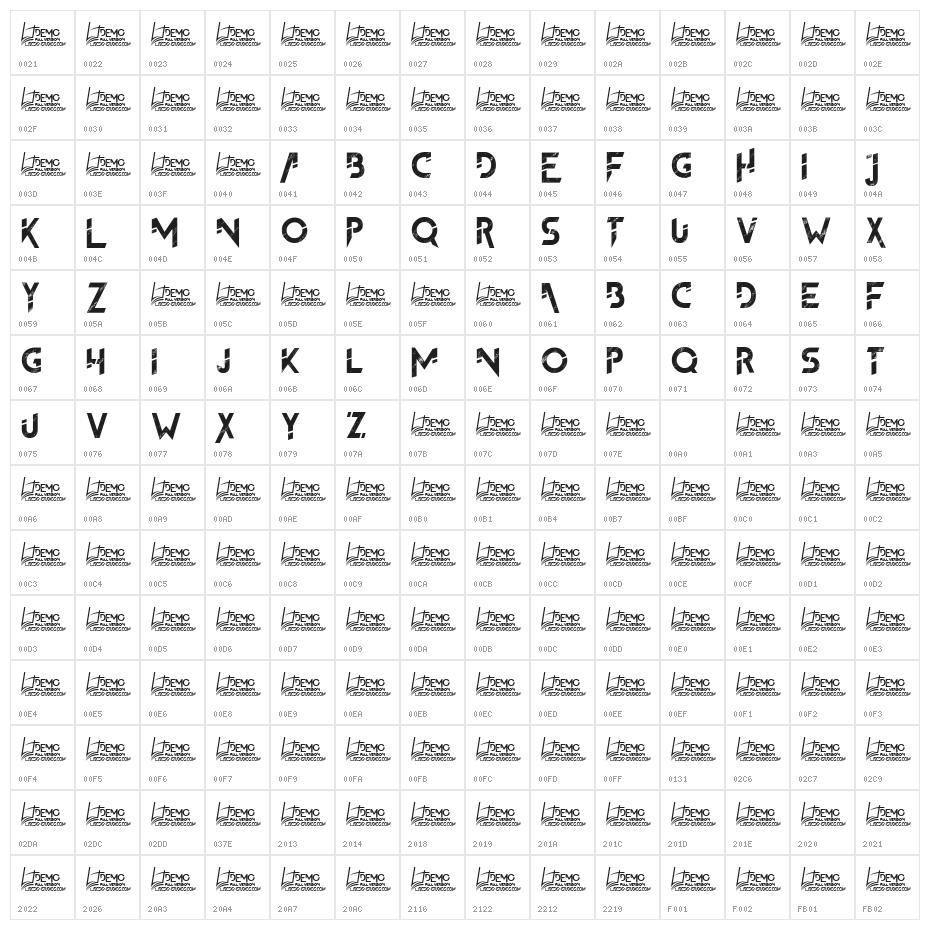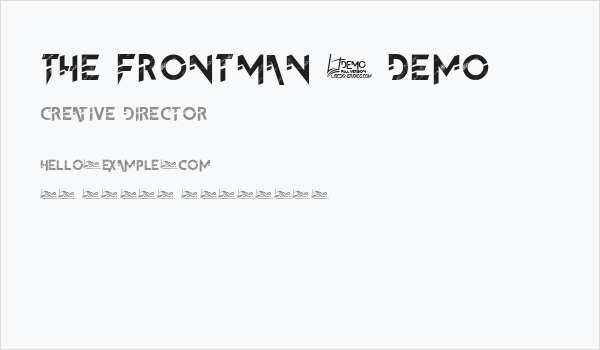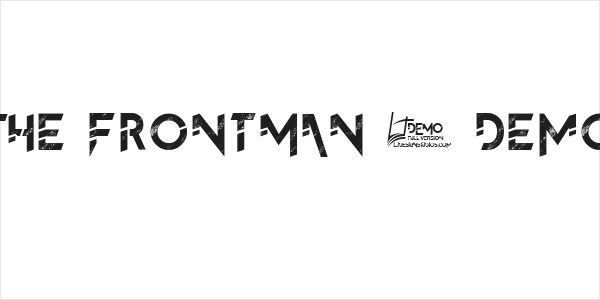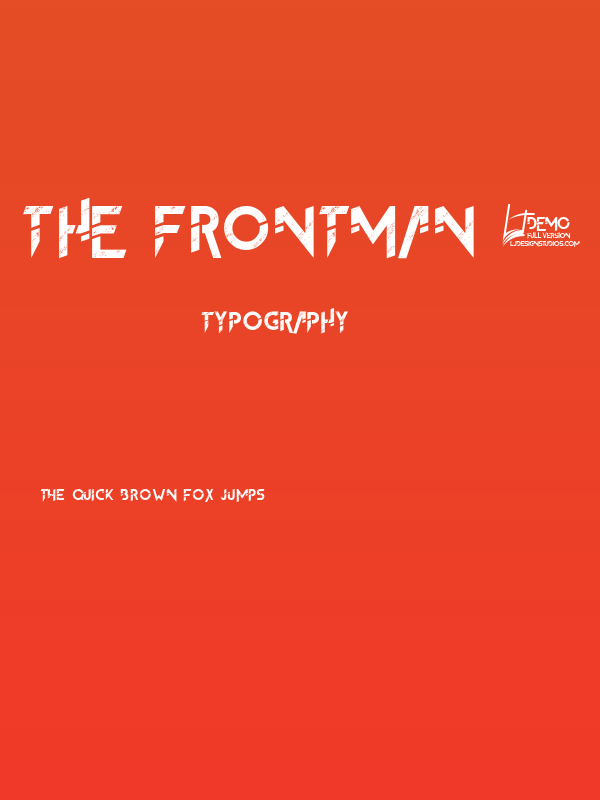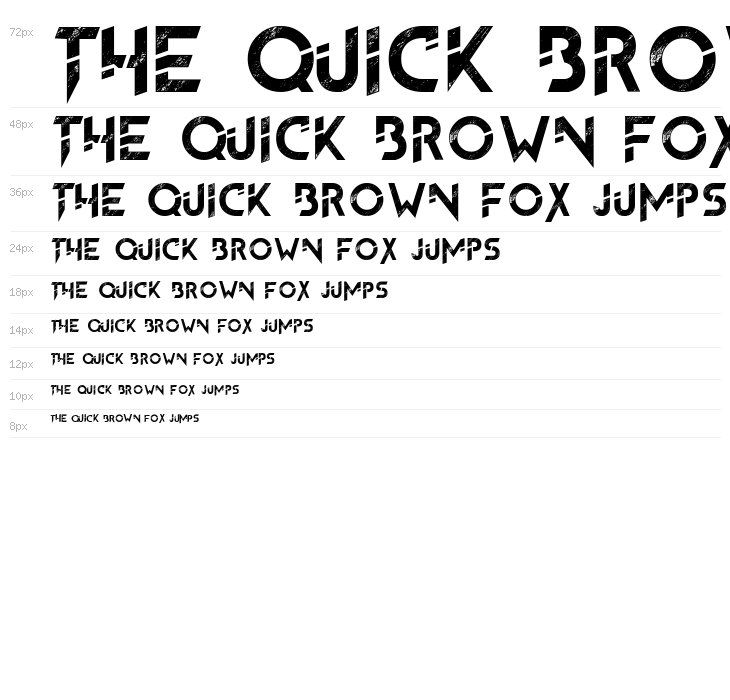
The FrontMan 2 demo Font
The FrontMan 2 demo Description
This font features a bold and edgy design with a distressed, grunge texture that gives it a rugged and dynamic appearance. The characters are angular and sharp, with a futuristic and industrial feel. The uppercase letters are particularly striking, with unique cuts and slashes that add to the font's aggressive style. The overall look is both modern and rebellious, making it ideal for projects that require a strong visual impact. The font's distressed texture adds depth and character, making it suitable for designs that aim to convey a sense of toughness or urban grit.
| Overall Style | Modern, Edgy |
| Proposed Projects | Ideal for music album covers, posters, video game titles, and branding for edgy or urban-themed products. |